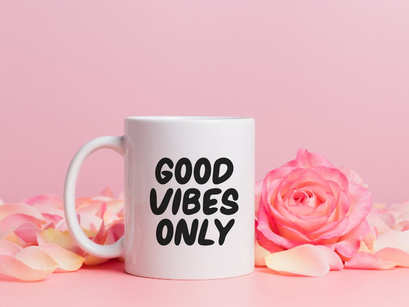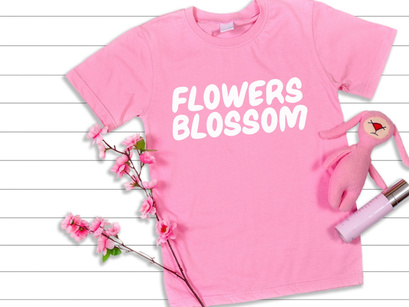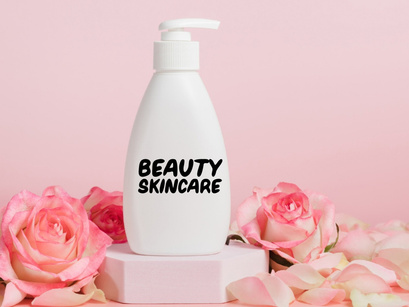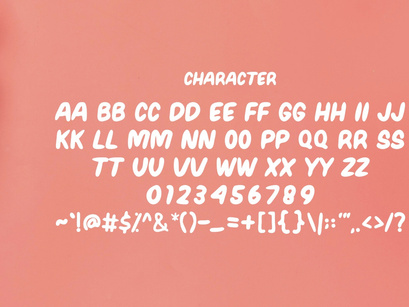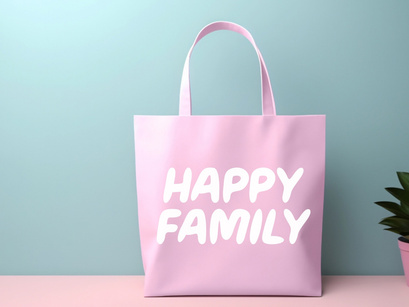
Blossom Dreams is a cheerful and whimsical Playful Display Font with a uniquely rounded, bubbly, and handwritten aesthetic. Its soft, flowing shapes and accompanying floral elements make it the perfect typeface for spring and summer branding, children's designs, cute logos, cheerful social media graphics, and creative crafting projects. This fun, bold font brings a joyful, organic, and memorable touch to any design, making it ideal for feminine apparel, invitations, and product packaging.